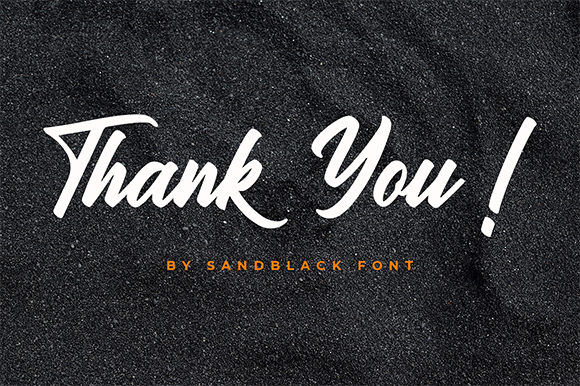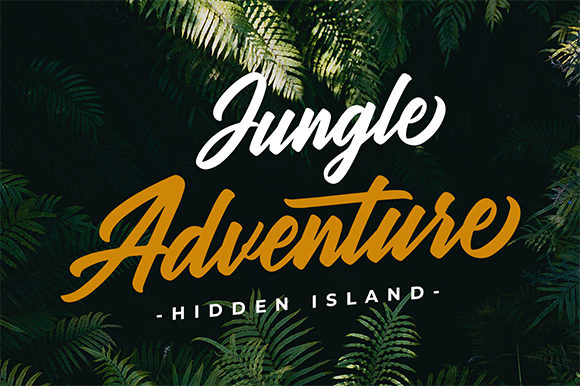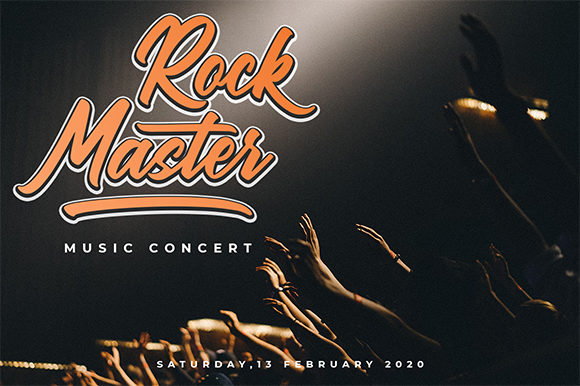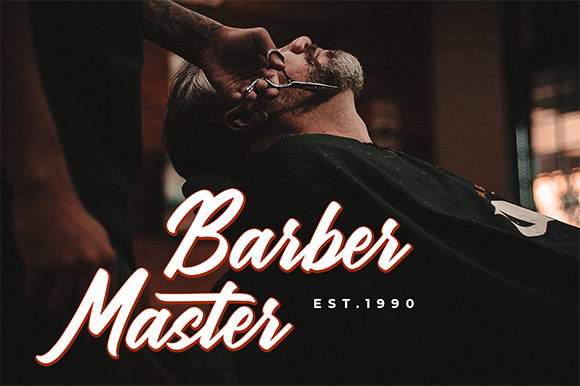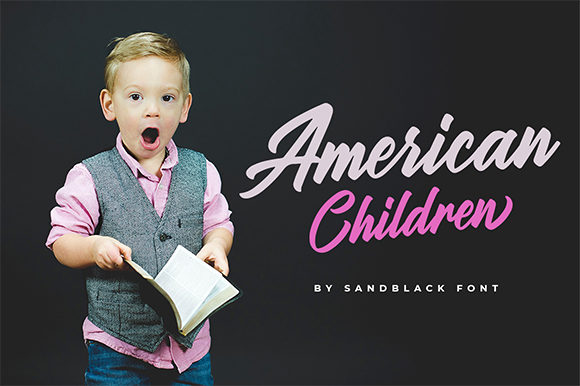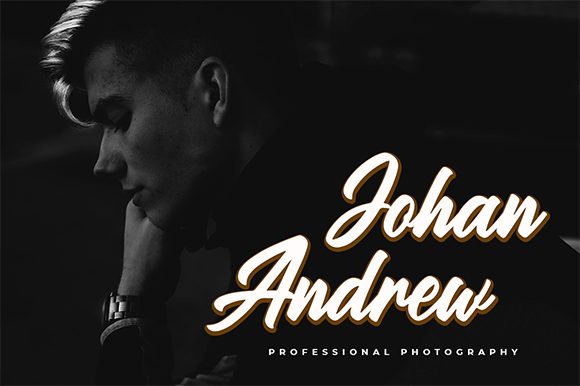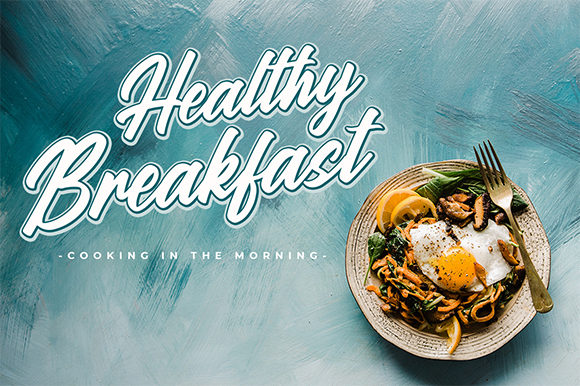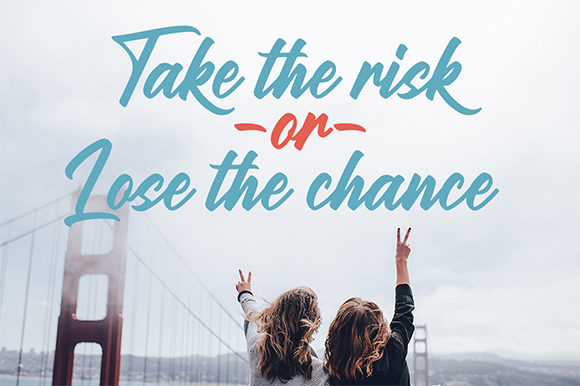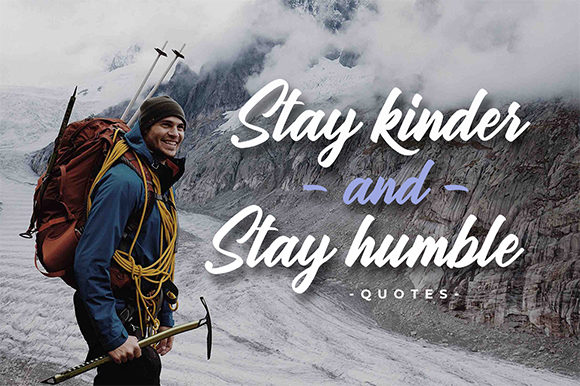
Sandblack Font
About Sandblack Font
Sandblack feels equally casual and elegant. It will elevate a wide range of design projects to the highest level, be it branding, headings, wedding designs, invitations, signatures, logos, labels, and much more!